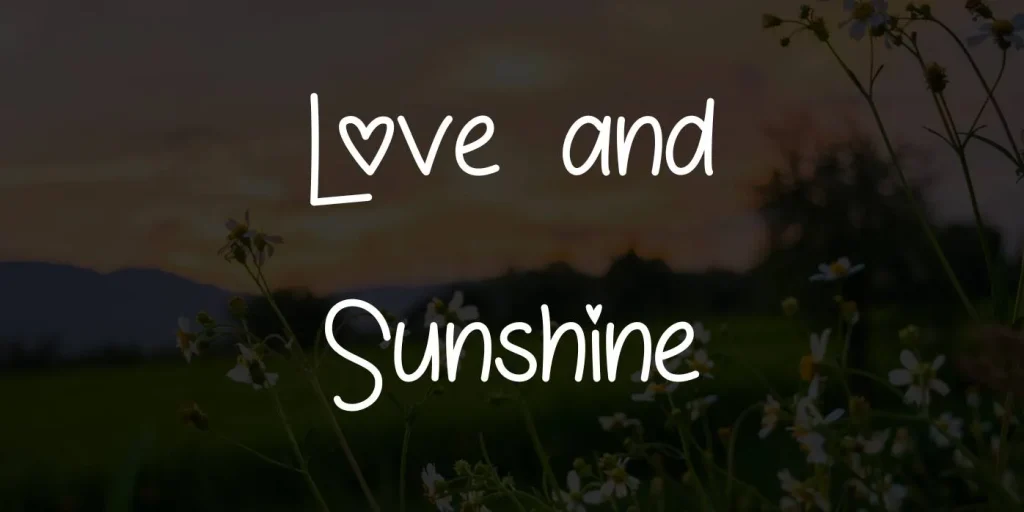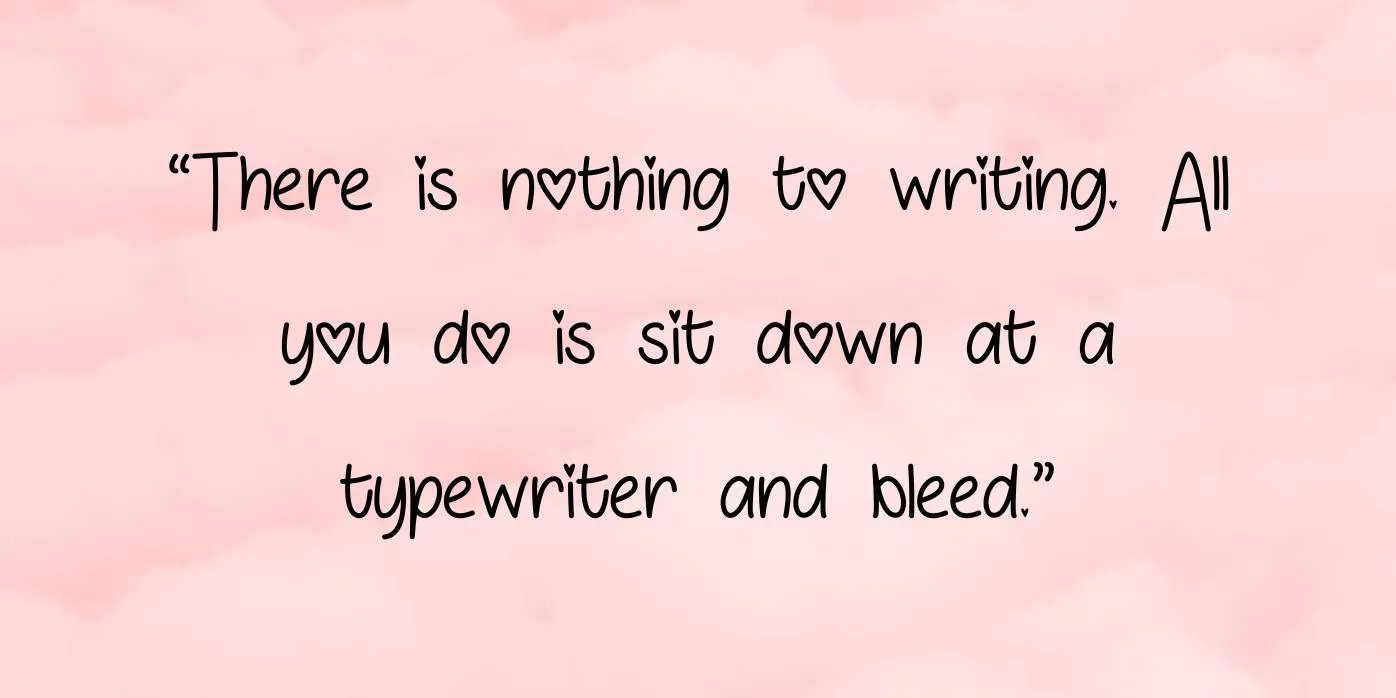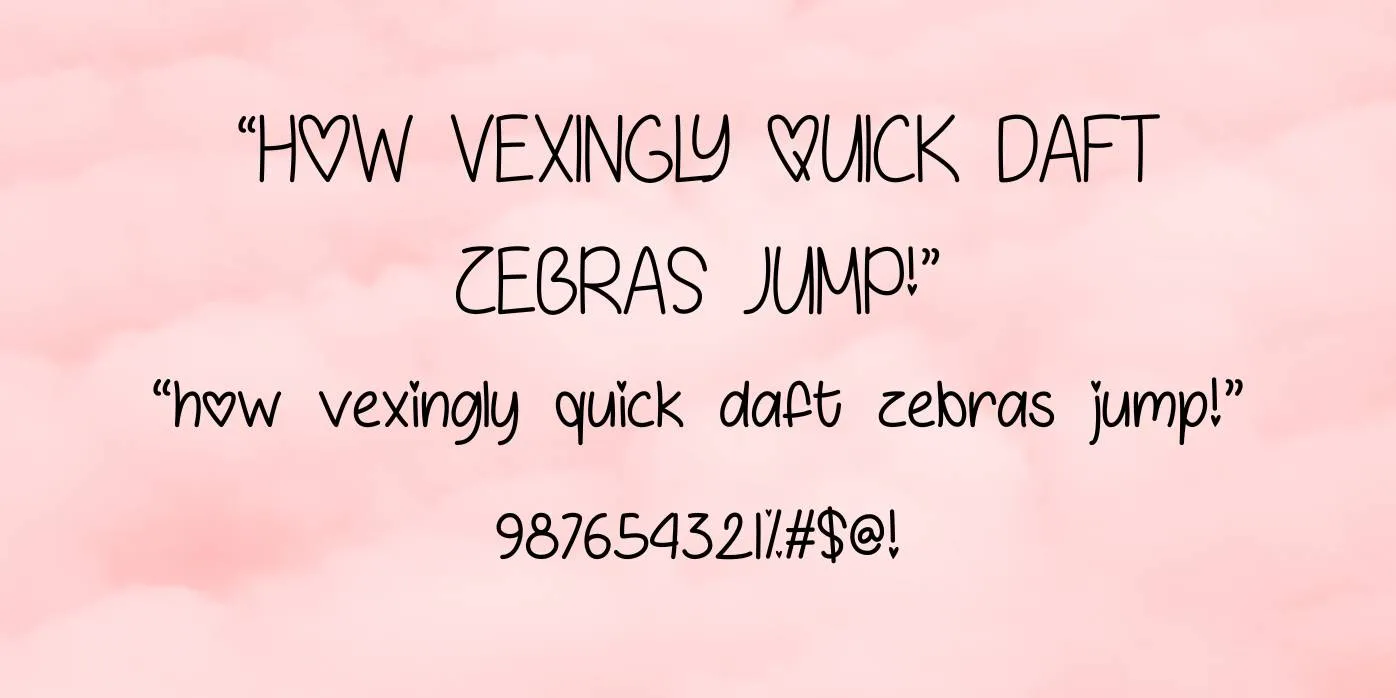
Love & Sunshine Font
If you want to make handwritten signage but require a beautiful handwritten typeface for this purpose, no more look than this typeface is the best recommendation. Love & Sunshine Font is a script typeface made by Misti’s Fonts.
Love & Sunshine Font Features
Love & Sunshine Font has stylish and beautiful 269 characters which can give a unique and lovely impression to your design/project. Those characters’ detail is written below.
• Uppercase
• lowercase
• Numbers
• Punctuations
• Accents
• Alternate characters
• Symbols
• Signs
• Ligatures
• Special Characters
Different Ways To Use Love & Sunshine Font
You can use this subtle and stylish typeface in many designs such as logos, invitation cards, website designs, mug designs, titles, app designs, posters, advertising, certificates, book covers, banners, printing materials, documentation, etc.
This lettering works well in digital and print media, this font style is brilliant for the making of symbols, headers and footers, pictures, slips, labels, scripts, statement writing, credentials, and much more. While you need lettering for a saleable emblem or book title or other presence project. You can employ this trendy typeface in many projects to form an accomplished and lovely look for your project.
Love & Sunshine Font Resemblance with Other Fonts
What is Love & Sunshine texture used for?
You can use this subtle and stylish typeface in many designs such as logos, invitation cards, website designs, mug designs, titles, app designs, and posters.
Is Love & Sunshine typeface a good style?
Yes! It is a good and beautiful font with a special texture look appearance. You must have to use it on your tasks.